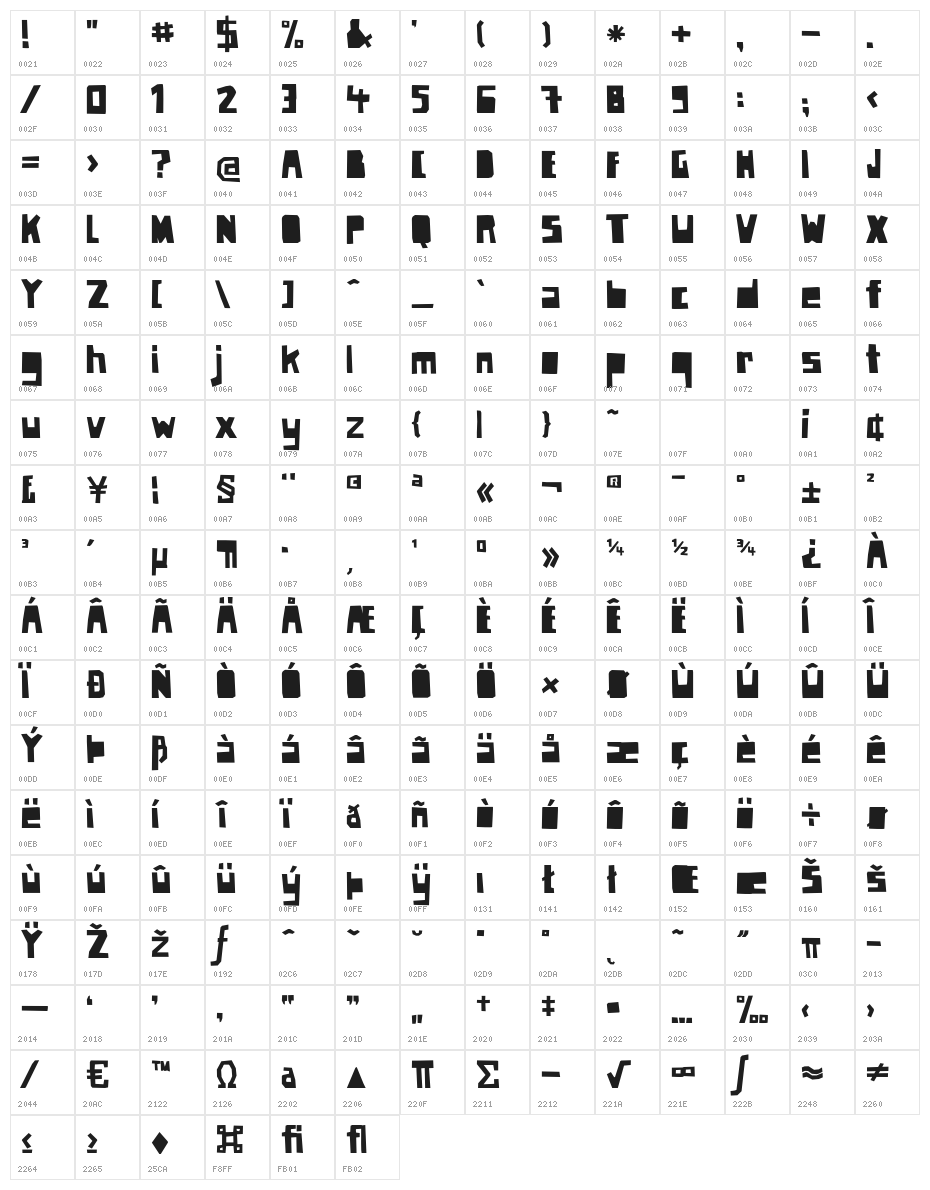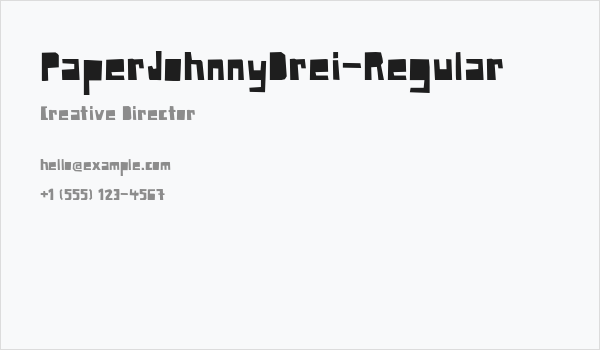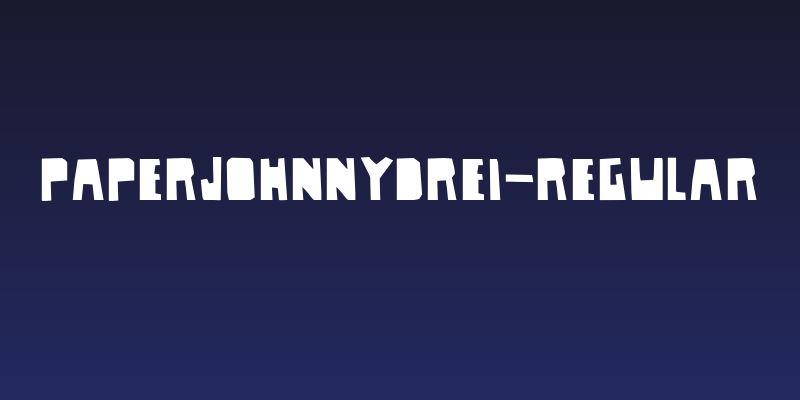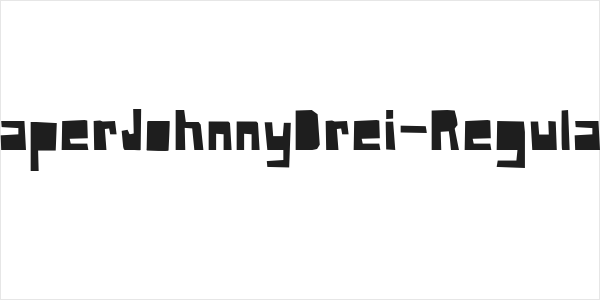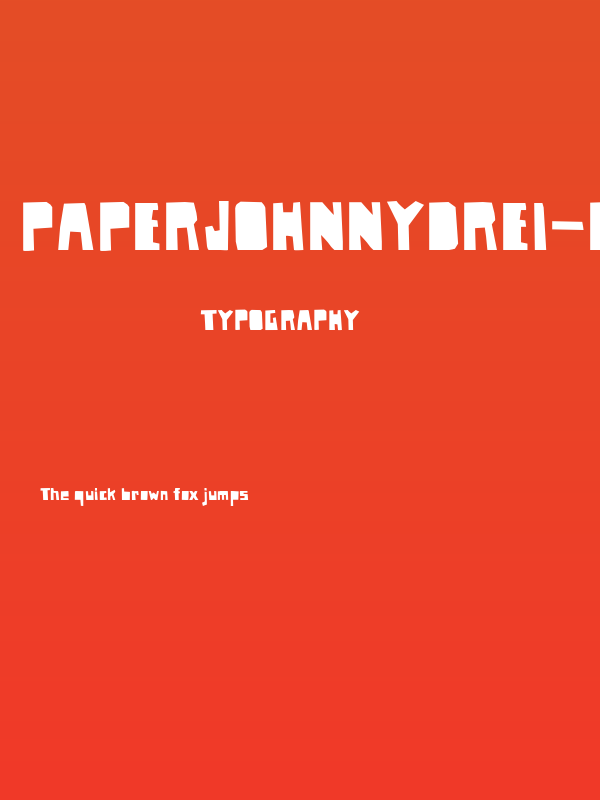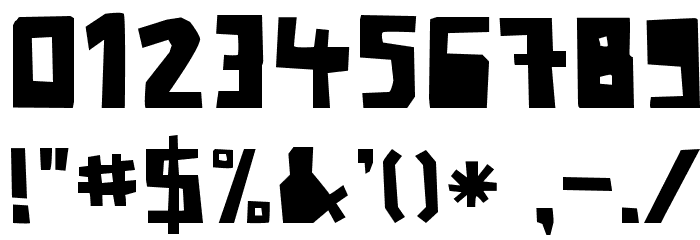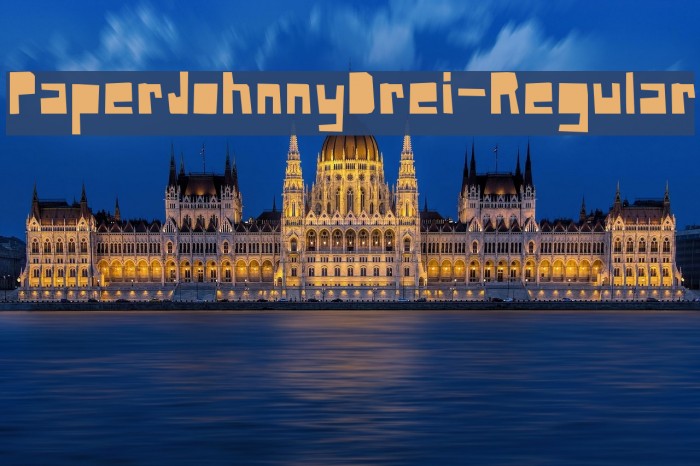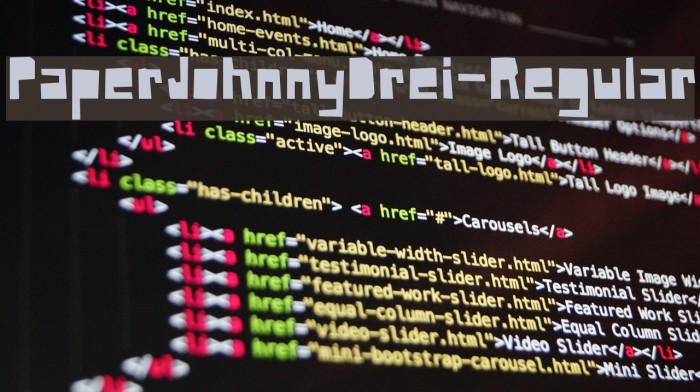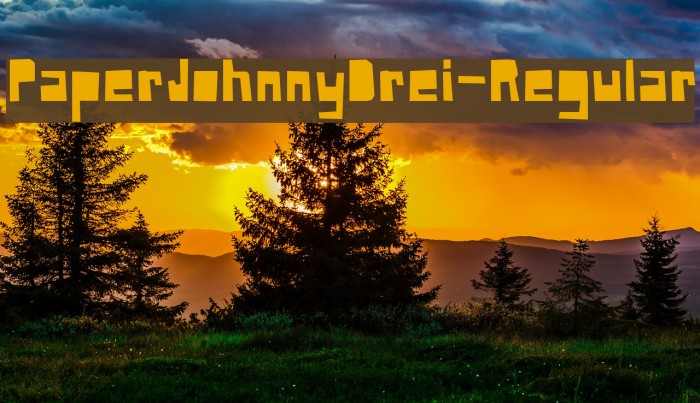
PaperJohnnyDrei-Regular Font
PaperJohnnyDrei-Regular Description
This font features a bold and playful design with a distinctly irregular and hand-cut appearance. The characters are blocky and geometric, with uneven edges that give it a unique, handcrafted feel. The uppercase and lowercase letters maintain a consistent height, contributing to a cohesive look. Numbers and special characters follow the same stylistic approach, ensuring uniformity across all glyphs. The font's quirky and artistic style makes it stand out, ideal for creative and informal applications.
| Proposed Projects | Ideal for posters, album covers, children's books, and creative branding projects. |